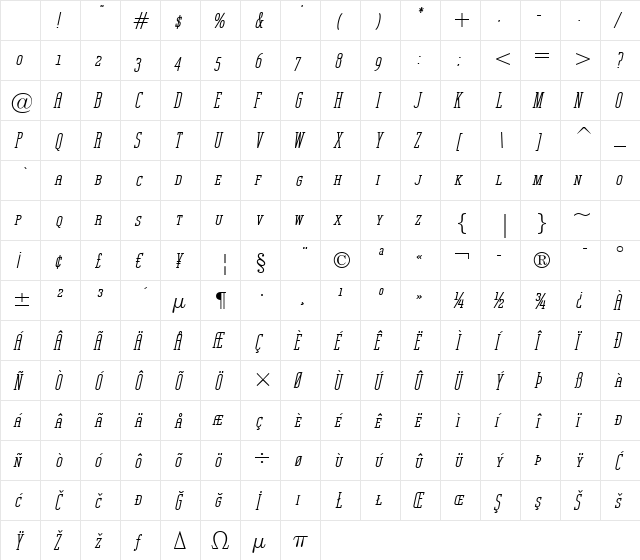
Complete Unknown Caller BTN SC BoldOblique glyph index. Displaying only characters natively supported by Unknown Caller BTN SC BoldOblique font.
Unknown Caller BTN SC is a composed and adaptable typeface that performs quietly and consistently across a wide range of design contexts. The slanted form adds forward momentum and visual energy. Its bold stroke weight gives it real presence on the page.